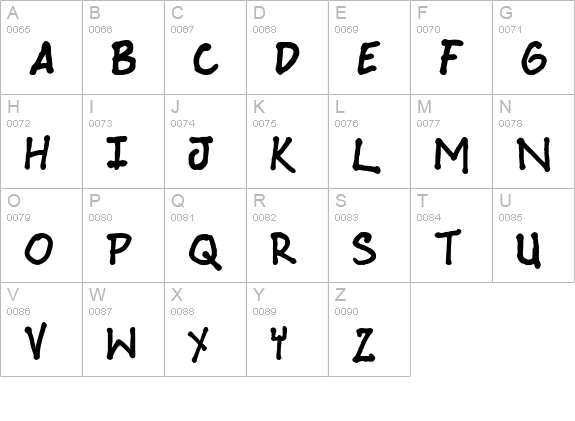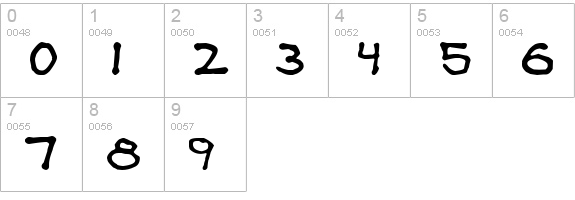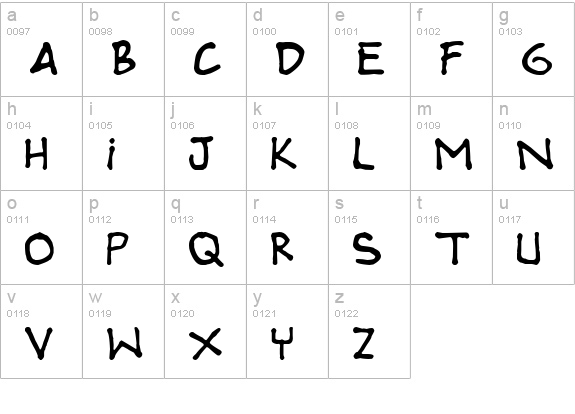
ultrateens Font Details
Introducing Ultrateens Font - a vibrant and energetic typeface that embraces the essence of youthful creativity and exuberance. This font is specifically designed to capture the attention of the young and dynamic audience, making it perfect for various projects such as posters, social media graphics, branding, and more. Ultrateens Font features a playful yet modern aesthetic, with its bold and curvaceous letterforms that exude a sense of excitement and vitality. Each character is meticulously crafted to maintain legibility while adding a touch of quirkiness to your designs. Whether you're aiming for a fun and lighthearted vibe or want to make a bold statement, the Ultrateens Font has got you covered. One of the best things about the Ultrateens Font is that it is absolutely free! You read that right - freely available to download at FontsMarket.com. Say goodbye to the hassle of purchasing expensive fonts and embrace the accessibility of this amazing typeface. With just a few clicks, you can enhance your projects with the youthful charm and modern appeal that Ultrateens Font brings. So why wait? Let your creativity run wild with Ultrateens Font, and watch as your designs come to life with an irresistible energy. Download it now for free at FontsMarket.com and unlock a world of possibilities for your projects. Get ready to make a lasting impression with this captivating and freely accessible font.